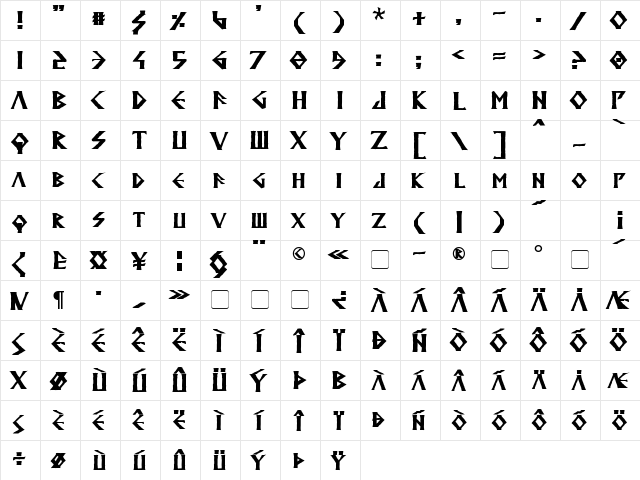
Anglodavek Bold
| Designer | Neale Davidson |
Design Context for Anglodavek Typeface
Anglodavek is a composed and adaptable typeface that performs quietly and consistently across a wide range of design contexts. Its bold stroke weight gives it real presence on the page.